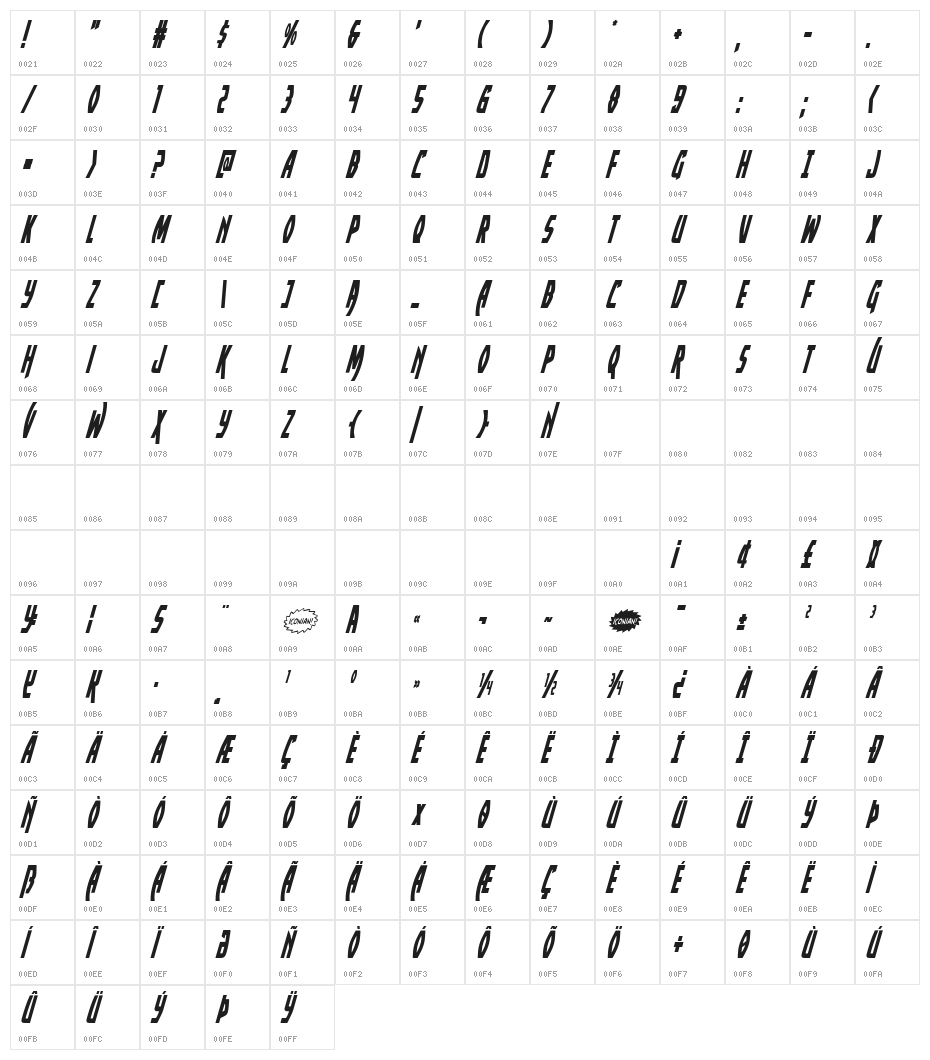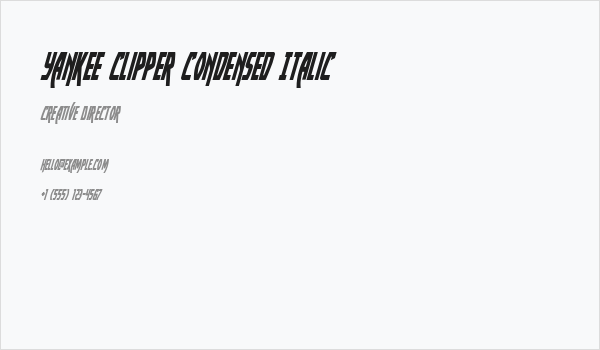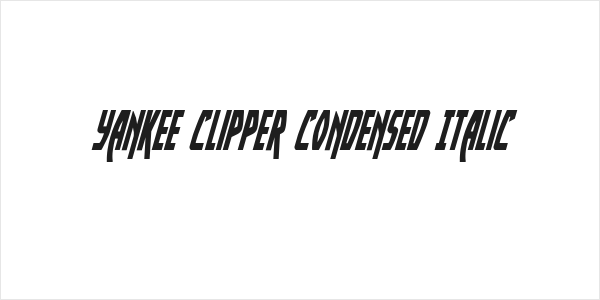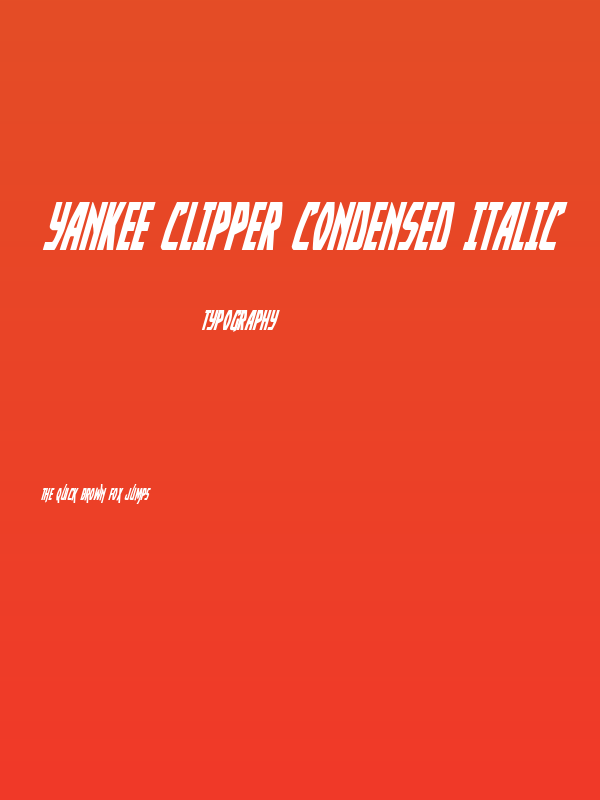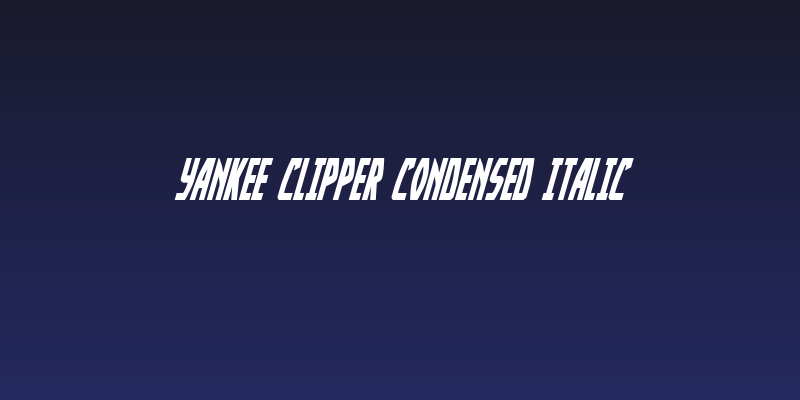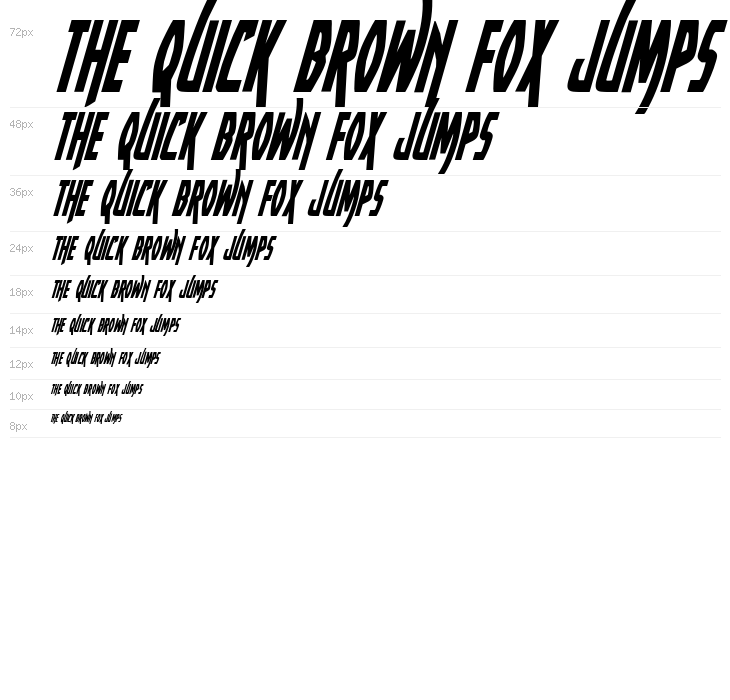
Yankee Clipper Condensed Italic Font
Yankee Clipper Condensed Italic Description
This font features a bold and dynamic style with a strong italic slant, giving it a sense of motion and energy. The characters are condensed, which allows for efficient use of space while maintaining readability. The uppercase and lowercase letters are designed with sharp angles and clean lines, contributing to a modern and edgy appearance. The numerals and special characters are consistent with the overall style, ensuring a cohesive look across all text elements. This font is particularly suitable for projects that require a bold statement or a sense of urgency.